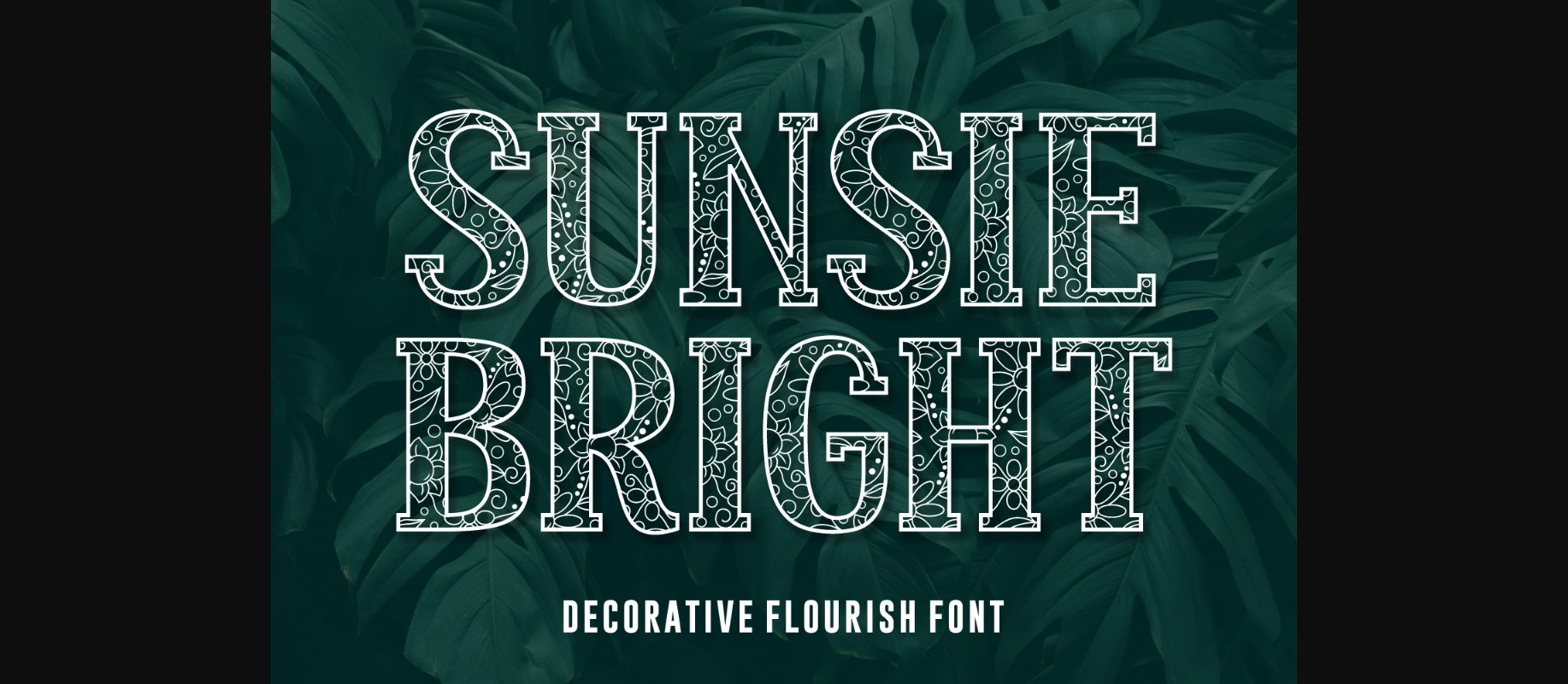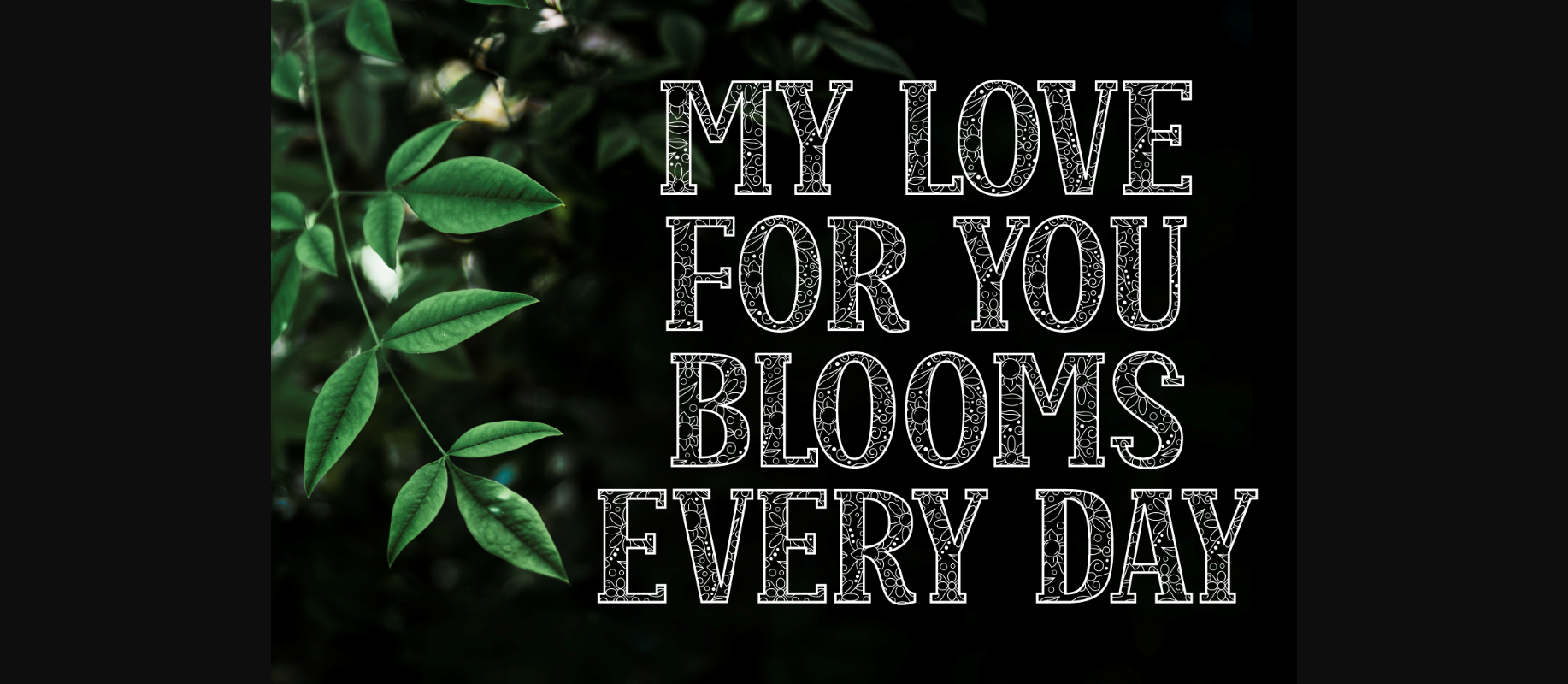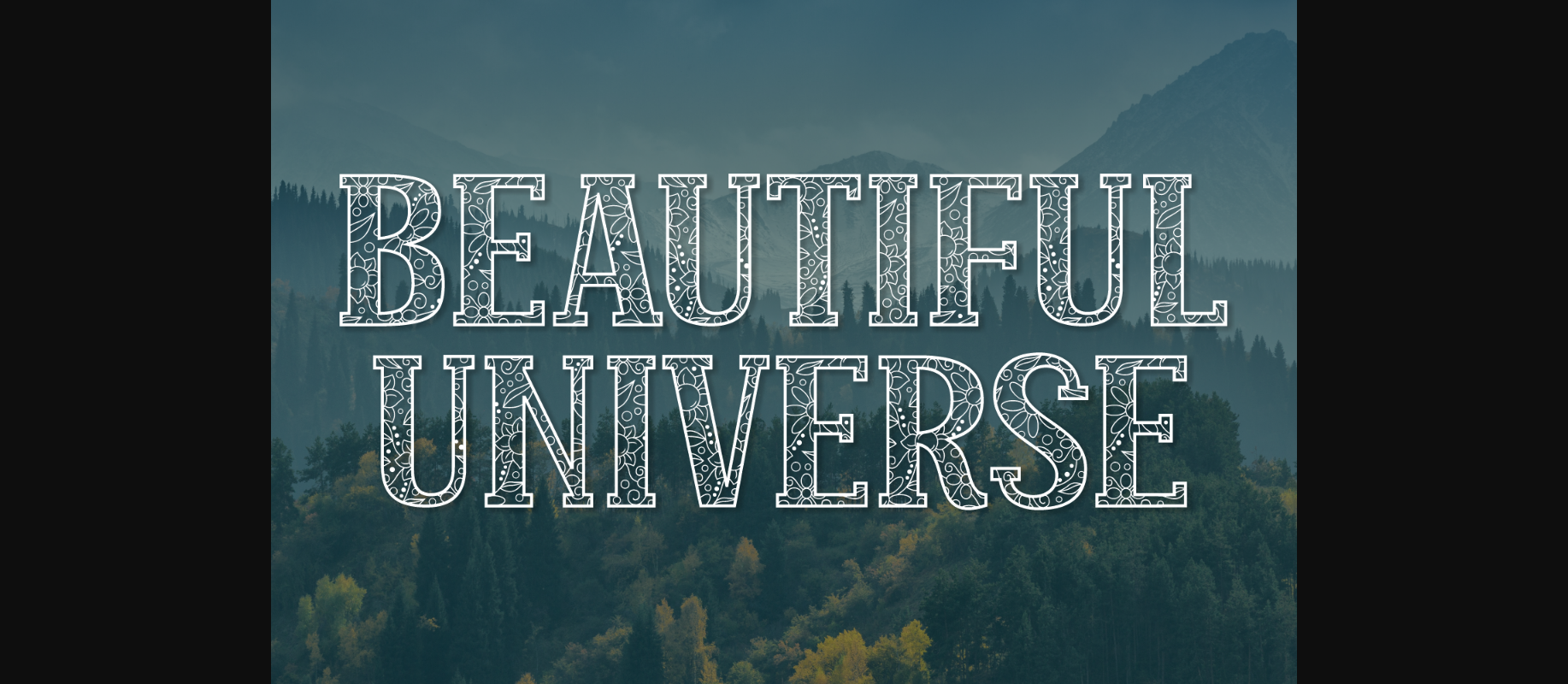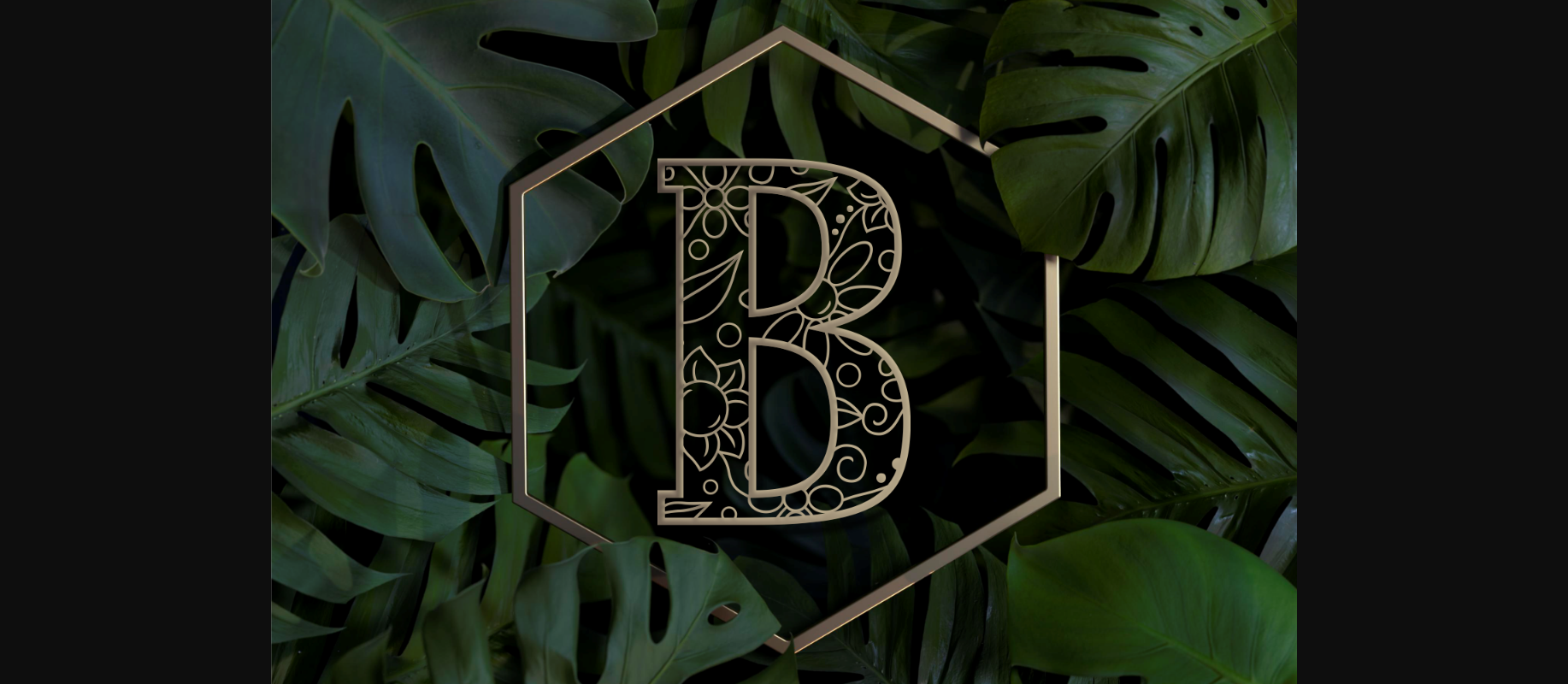
Sunsie Bright Font
About Sunsie Bright Font
Sunsie Bright is a fresh, thick lettered and gorgeous decorative font. Fall for its ravishing style and use it to create gorgeous wedding invitations, beautiful stationary art, eye-catching social media posts, and much more!